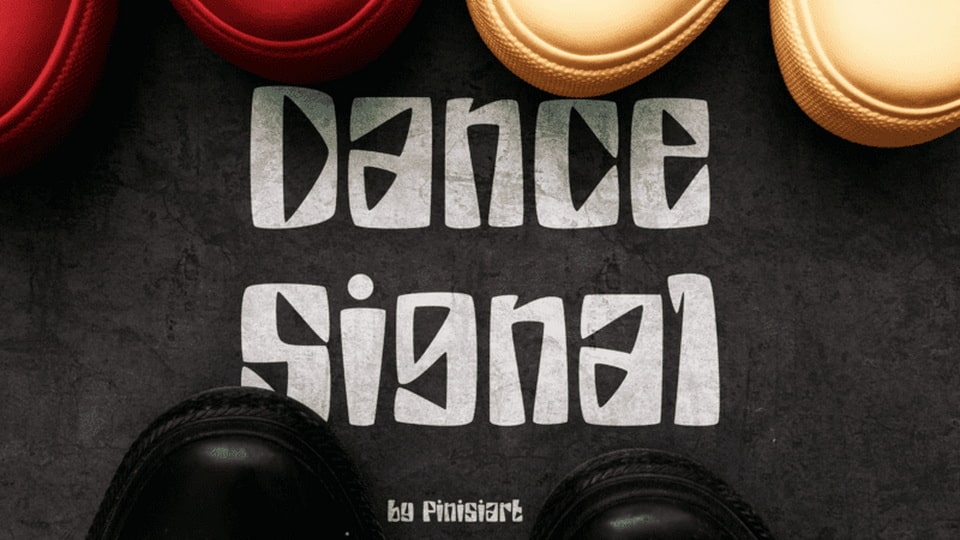
Download Dance Signal font, a display typeface. Its unique shape reminds us of the vibrant 70s and 80s era when we are all happy and love to dance. The Dance Signal will bring those vibes to your projects, and make them pop above others.